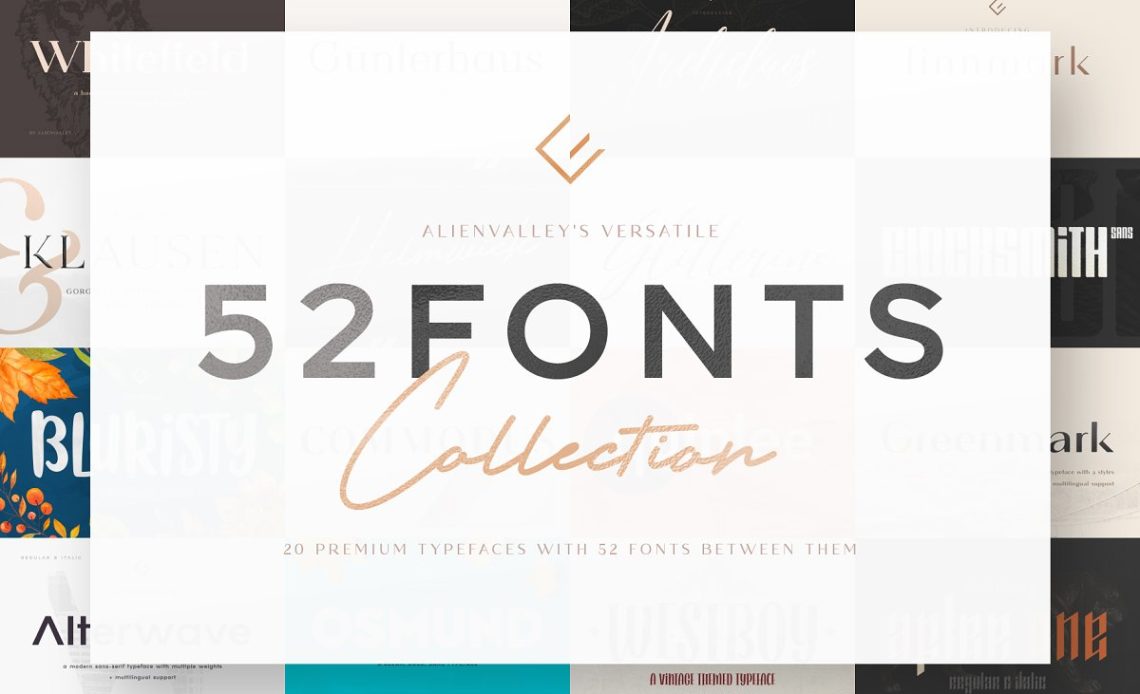
Looking for the best font to elevate your signature block? Look no further than The Versatile Font Bundle! Created by AlienValley, this collection features 20 premium typefaces with 52 fonts between them, including serif, sans-serif, brush, and script fonts. And now, you can get a year's worth of our work for just $29 at an 88% discount!
In this bundle, you'll find a wide range of fonts to suit any project, from the elegant Archelaos script font to the bold and modern Exophis sans-serif font. Each font is carefully crafted with attention to detail, ensuring that your projects will stand out from the rest.
Some of the highlights of this bundle include the Whitefield Handcrafted Serif, Gunterhaus Modern & Transitional, and the Bluristy Brush Typeface. But that's not all – with 20 typefaces to choose from, you're sure to find the perfect font for your next project.